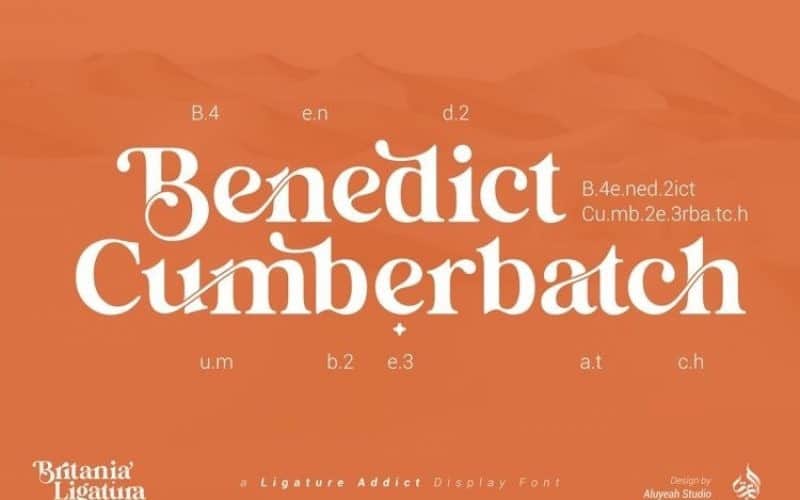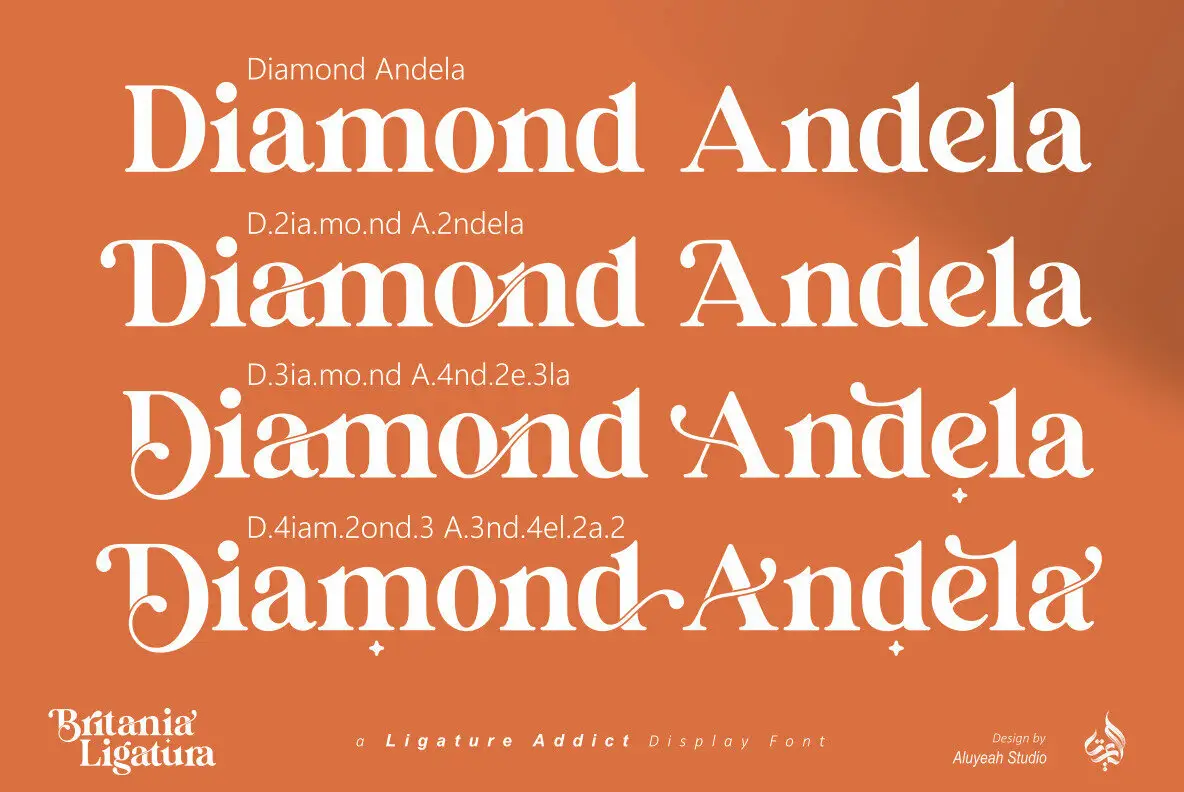
Britania Ligatura Font Free Download . Britania ligatura, a ligature addict display font. Download the britania ligatura font by aluyeah studio. This version is a personal to use only. Britania ligatura serif font is a stunning ligature addict display typefaces created by aluyeah studio with 170 plus alternate and ligature letters to produce elegant, stylish, classic and. To get results like the preview just type b.4r.ita.ni.2a.2 liga.tur.a. The britania ligatura font has been downloaded 10,549 times. If you wish to use it for commercial use, you need to purchase a premium license. Download and install the britania ligatura font by aluyeah studio. Britania ligatura font free download. Click now to create a custom. A great choice for highlighting your design elements. Free download of britania ligatura font. Britania ligatura has been downloaded 10,046 times. See how to download britania ligatura for free!
Britania Ligatura Font Free Download A great choice for highlighting your design elements. See how to download britania ligatura for free! This version is a personal to use only. Britania ligatura serif font is a stunning ligature addict display typefaces created by aluyeah studio with 170 plus alternate and ligature letters to produce elegant, stylish, classic and. Britania ligatura, a ligature addict display font. To. Britania Ligatura Font Free Download.
FREE Britania Ligatura on Behance Britania Ligatura Font Free Download This version is a personal to use only. Free download of britania ligatura font. Download and install the britania ligatura font by aluyeah studio. Britania ligatura, a ligature addict display font. The britania ligatura font has been downloaded 10,549 times. Britania ligatura serif font is a stunning ligature addict display typefaces created by aluyeah studio with 170 plus alternate and. Britania Ligatura Font Free Download.
FREE Britania Ligatura on Behance Britania Ligatura Font Free Download See how to download britania ligatura for free! Britania ligatura has been downloaded 10,046 times. Free download of britania ligatura font. Britania ligatura, a ligature addict display font. Download and install the britania ligatura font by aluyeah studio. Britania ligatura serif font is a stunning ligature addict display typefaces created by aluyeah studio with 170 plus alternate and ligature letters. Britania Ligatura Font Free Download.
Britania Sign Font Free Font Britania Ligatura Font Free Download To get results like the preview just type b.4r.ita.ni.2a.2 liga.tur.a. Download and install the britania ligatura font by aluyeah studio. If you wish to use it for commercial use, you need to purchase a premium license. Britania ligatura font free download. Free download of britania ligatura font. Britania ligatura, a ligature addict display font. Britania ligatura has been downloaded 10,046. Britania Ligatura Font Free Download.
Britania_Ligatura font Britania Ligatura Font Free Download Free download of britania ligatura font. Britania ligatura, a ligature addict display font. This version is a personal to use only. Britania ligatura font free download. To get results like the preview just type b.4r.ita.ni.2a.2 liga.tur.a. The britania ligatura font has been downloaded 10,549 times. A great choice for highlighting your design elements. See how to download britania ligatura for. Britania Ligatura Font Free Download.
Britania Ligatura Font Free Dafont Free Britania Ligatura Font Free Download The britania ligatura font has been downloaded 10,549 times. Britania ligatura has been downloaded 10,046 times. See how to download britania ligatura for free! Download and install the britania ligatura font by aluyeah studio. Britania ligatura font free download. Click now to create a custom. If you wish to use it for commercial use, you need to purchase a premium. Britania Ligatura Font Free Download.
Britania Ligatura Font YouWorkForThem Britania Ligatura Font Free Download Free download of britania ligatura font. Click now to create a custom. Download and install the britania ligatura font by aluyeah studio. To get results like the preview just type b.4r.ita.ni.2a.2 liga.tur.a. This version is a personal to use only. See how to download britania ligatura for free! Britania ligatura, a ligature addict display font. Britania ligatura font free download.. Britania Ligatura Font Free Download.